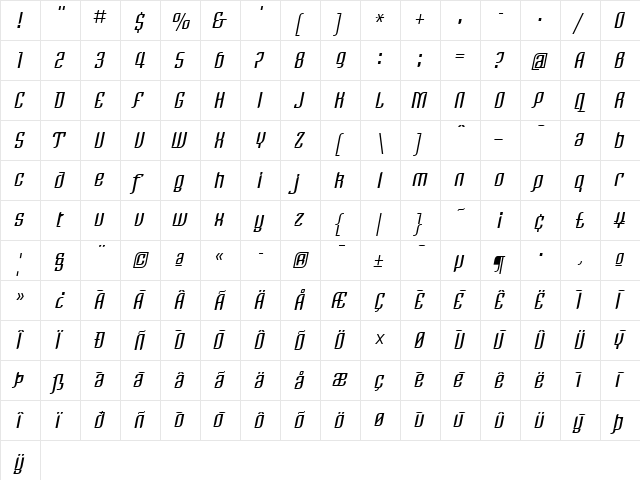
LTRezident Two Regular
Design Context for LTRezident Two Typeface
LTRezident Two offers clean, dependable letterforms without strong stylistic allegiance, making it a practical choice for designers who need flexibility.